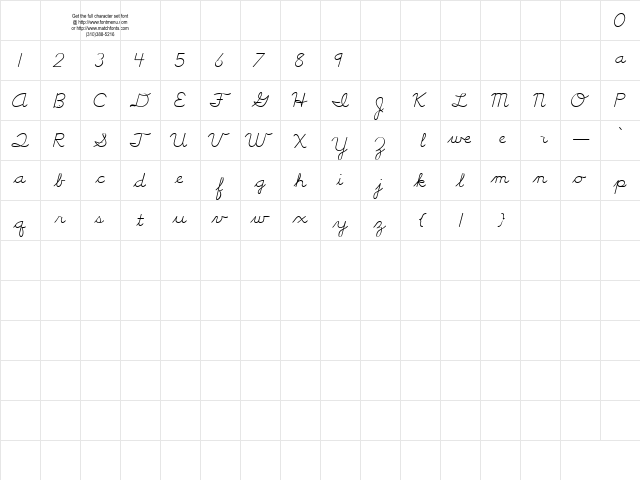
Cursive Handwriting Tryout Regular
Design Context for Cursive Handwriting Tryout Typeface
Cursive Handwriting Tryout brings a calligraphic fluidity to the page — its connecting strokes and expressive curves give it an unmistakably human quality.